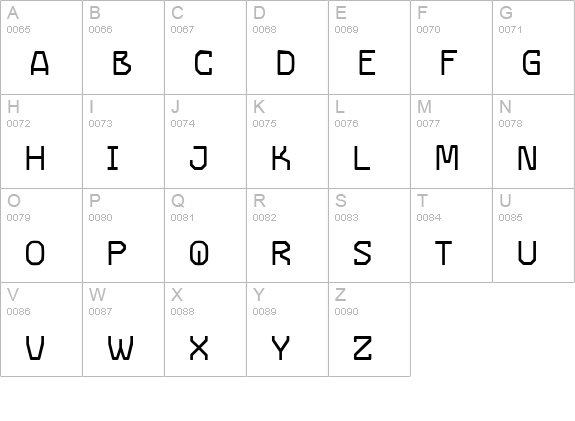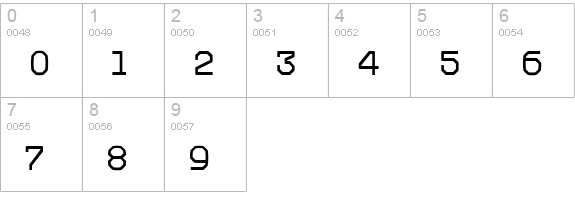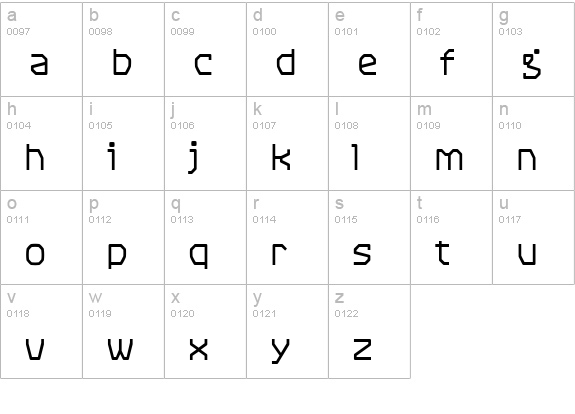
RangeMedium Font Details
The RangeMedium font is a versatile and modern typeface that strikes the perfect balance between elegance and readability. Its sleek lines and contemporary design make it ideal for a wide range of projects, from branding to editorial design. The RangeMedium font is characterized by its medium weight, making it suitable for both headlines and body text. One of the best features of the RangeMedium font is that it is available for free download at FontsMarket.com. This means that you can easily access this high-quality font without having to worry about any additional costs. Whether you are a designer looking to enhance your projects or a business owner in need of a professional font for your branding materials, the RangeMedium font is a fantastic choice that won't break the bank. With its clean and sophisticated appearance, the RangeMedium font is sure to add a touch of elegance to any design project. So why wait? Download the RangeMedium font for free today and take your designs to the next level.